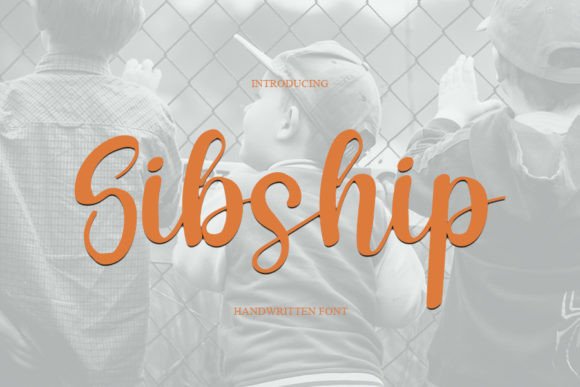
Step into a world of sophistication and grace with Sibship Font, a captivating script font that exudes timeless elegance. Inspired by the art of classic calligraphy, this masterpiece is a symphony of flowing strokes and refined letterforms, each meticulously crafted to elevate your designs to new heights.
Sibship Font boasts a modern vibe that sets it apart from the ordinary. Its carefully balanced lines and varied strokes create a visual harmony that dances across your projects, adding a touch of charm and intrigue. From enchanting wedding invitations to stylish branding, Sibship Font is the perfect choice for those seeking a font that leaves a lasting impression.
With its impeccable form and spotless execution, Sibship Font is a versatile chameleon that adapts seamlessly to a myriad of creative endeavors. Whether you're crafting heartfelt love letters, designing eye-catching posters, or creating stunning logos, this font will effortlessly elevate your work to new levels of excellence.
Unleash your creativity and let Sibship Font guide you on a journey of artistic expression. Its smooth curves and elegant flourishes will add a touch of magic to your designs, captivating your audience and leaving them spellbound.
Sibship Font isn't just a font; it's an experience that transports you to a realm of beauty and wonder. Let your imagination soar as you explore the endless possibilities that await you with this remarkable font.